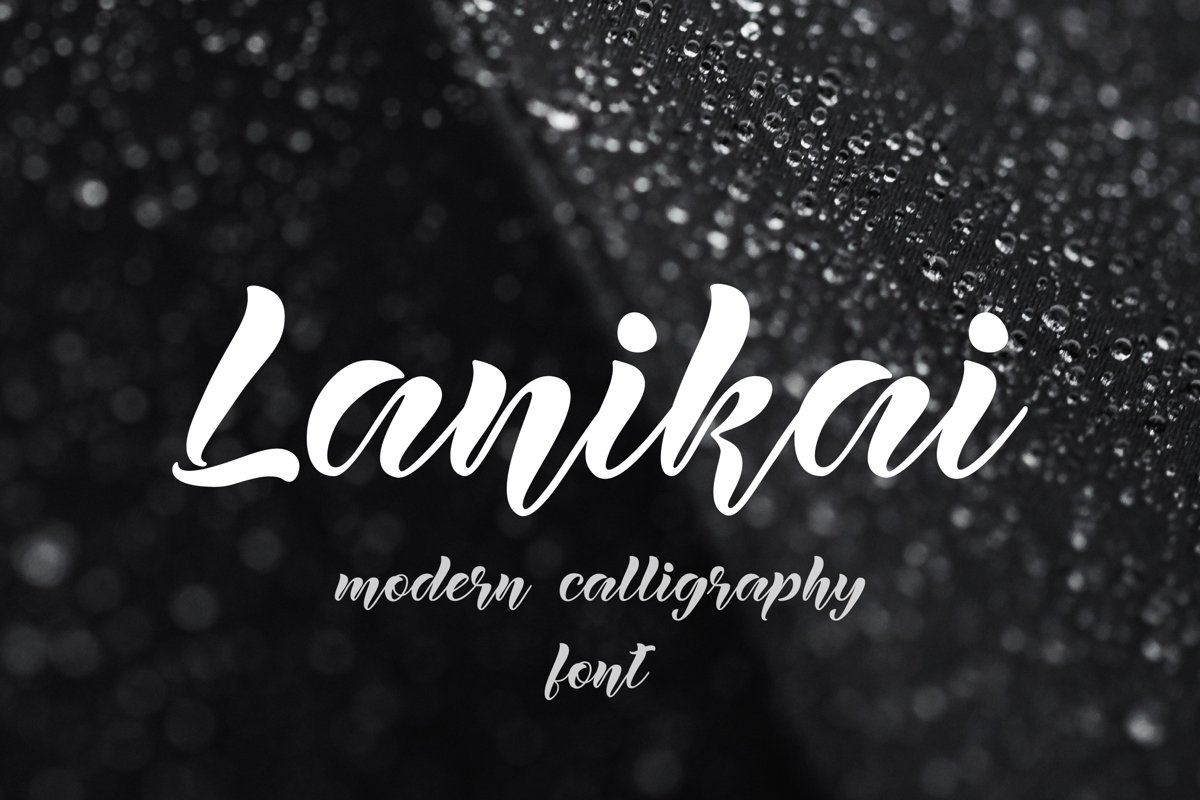
Lanikai - calligraphy script font
Lanikai-script
“Lanikai” is a contrast italic hand-lettered script font based on brush calligraphy writing style. Smooth contours make it elegant, the dancing baseline makes it full of personality.
Lanikai is great for logotypes, branding projects, labels, social media, menus, embroidery, DIY projects and many many more.
Font consists of 240 glyphs, including standart ligatures and multilanguage characters.